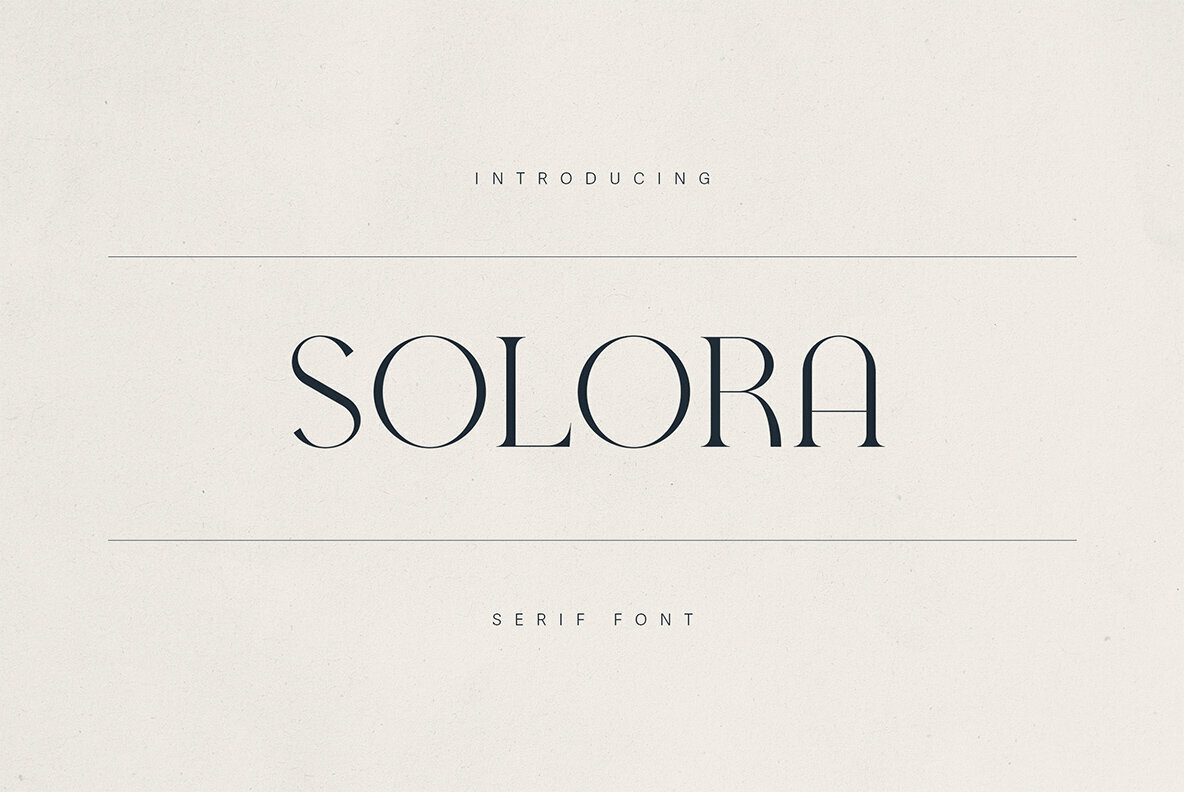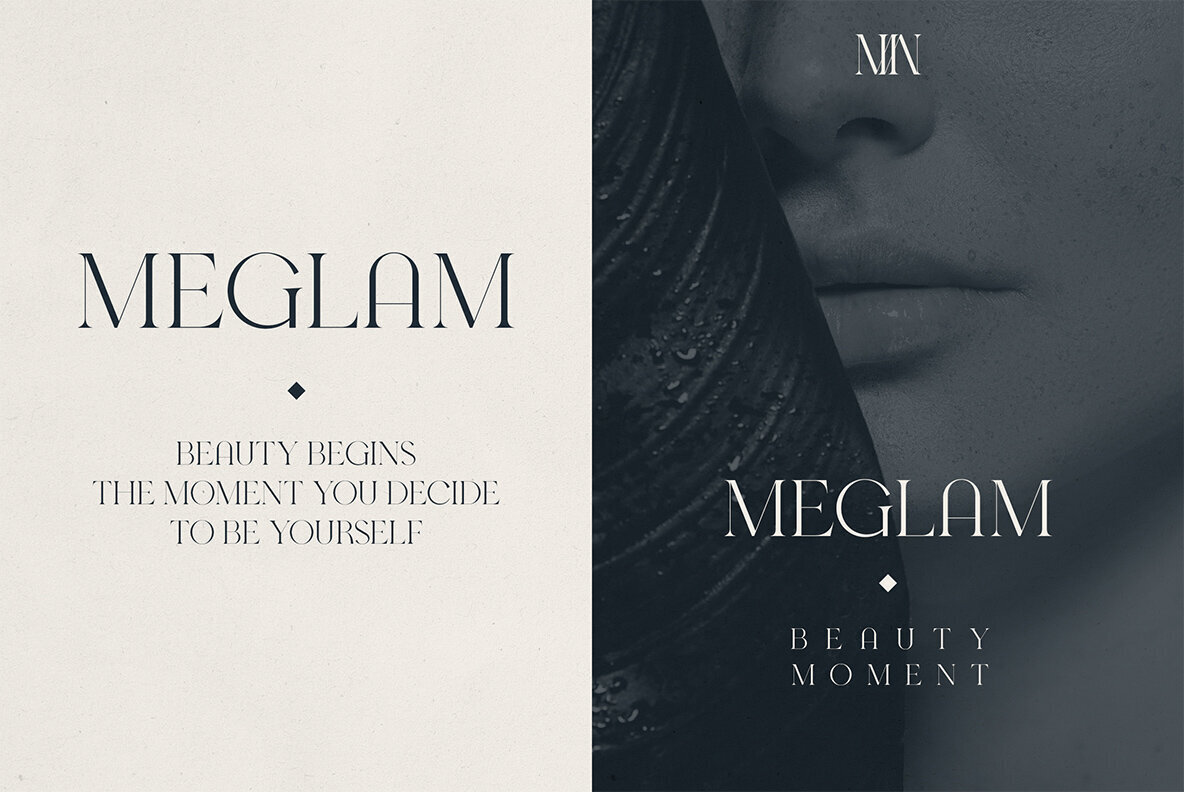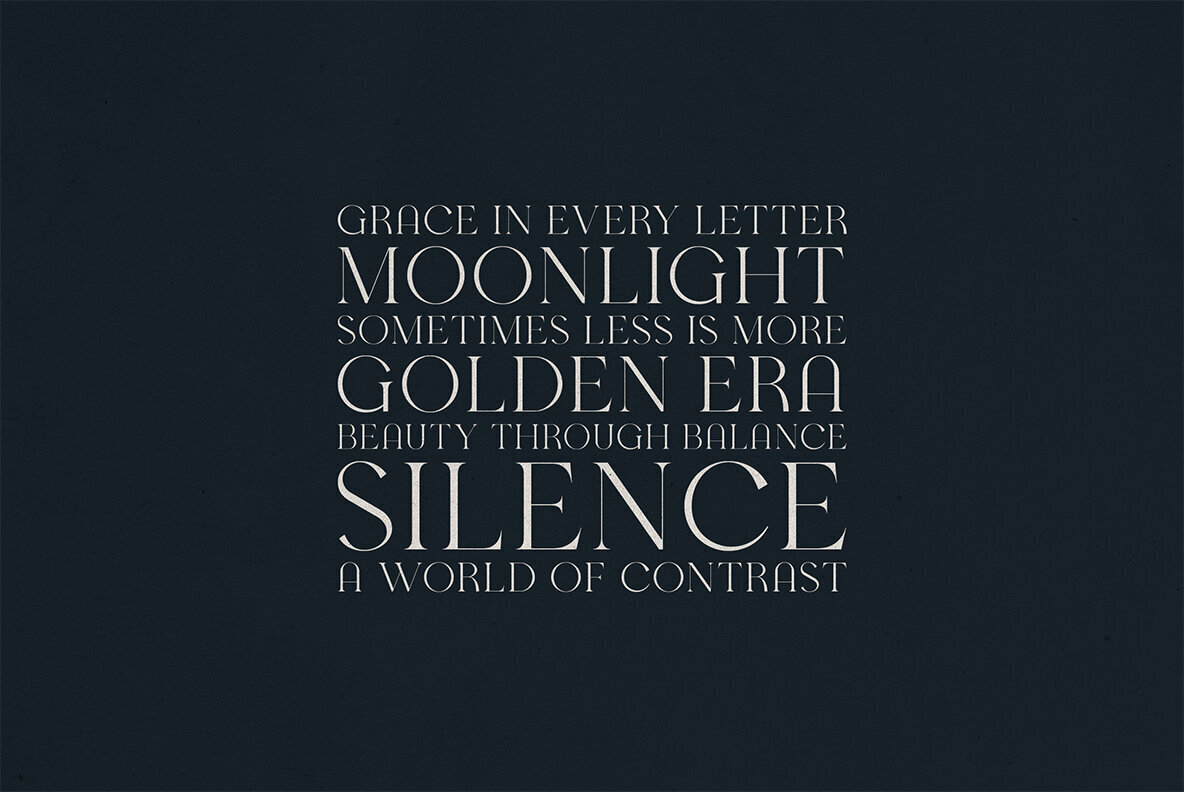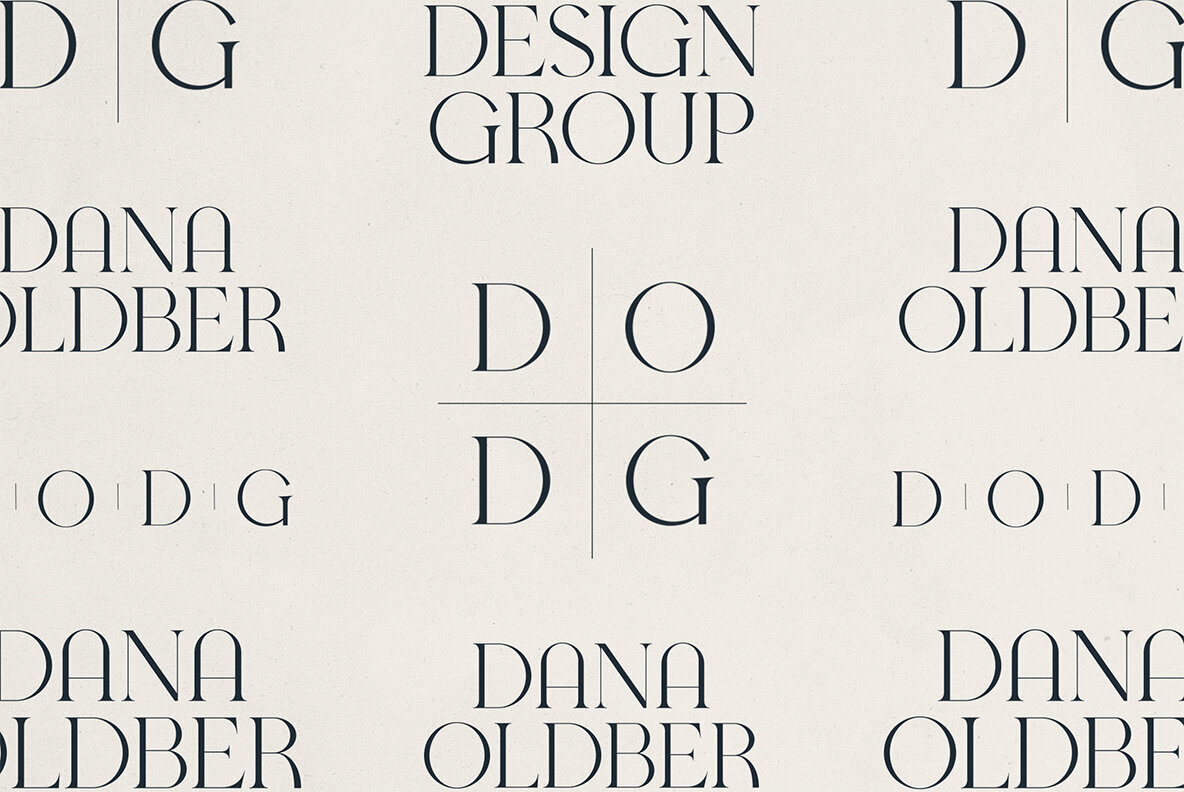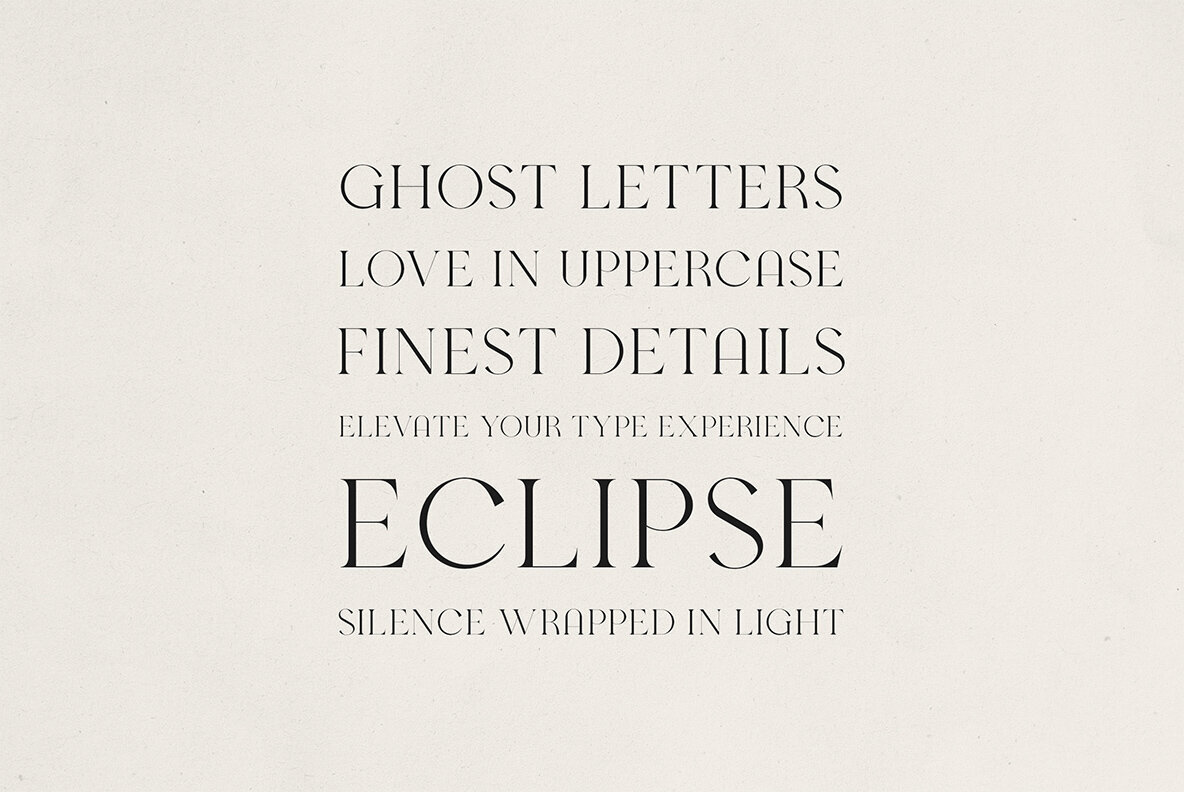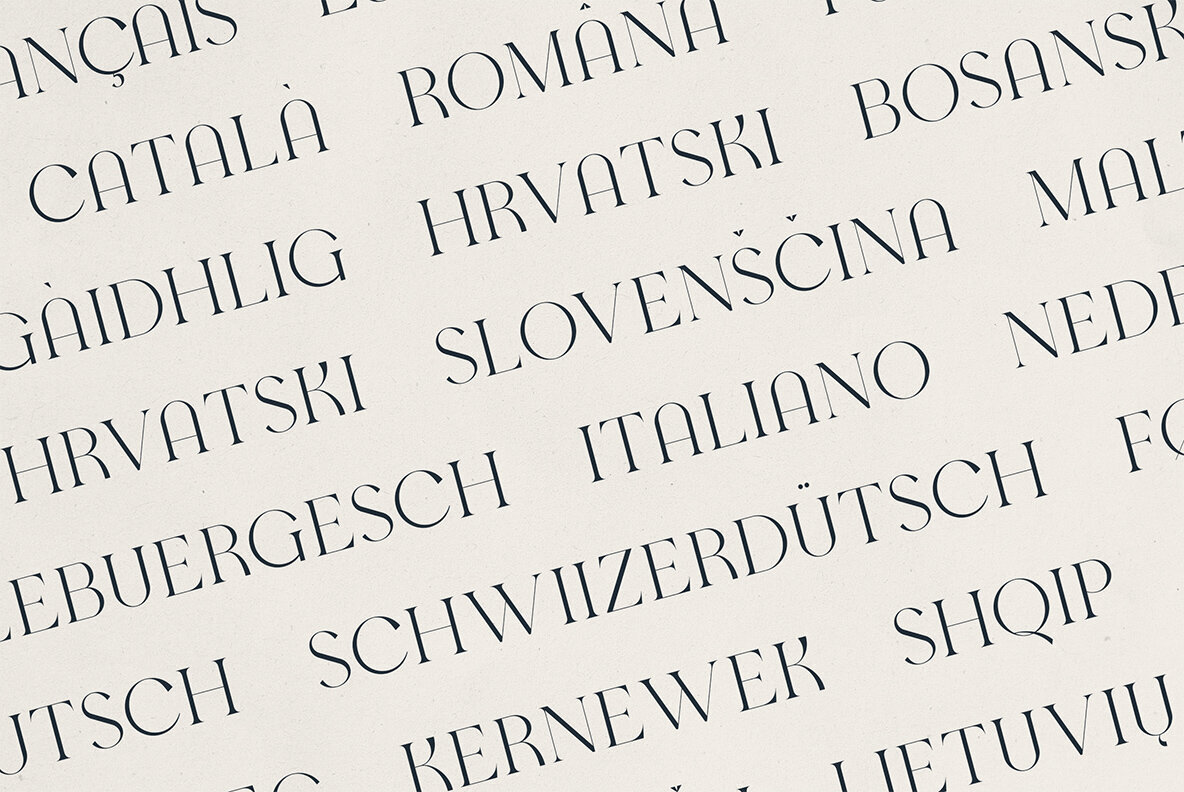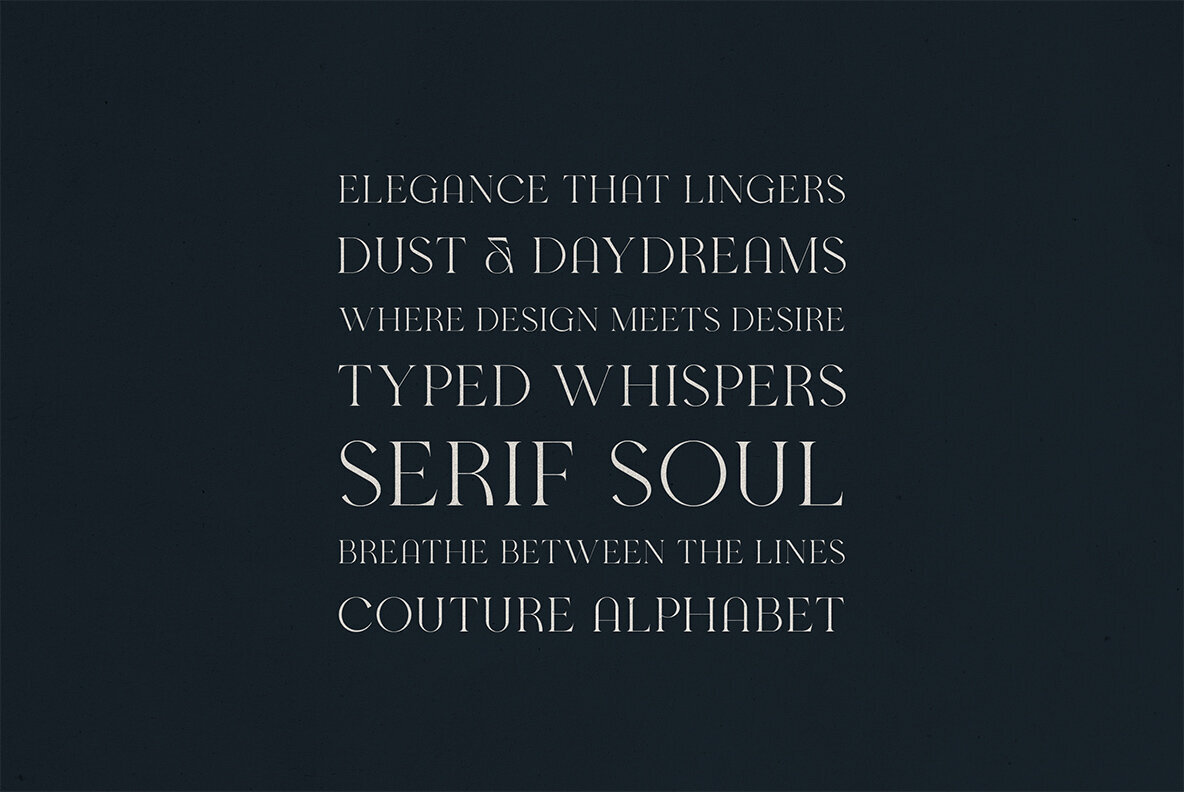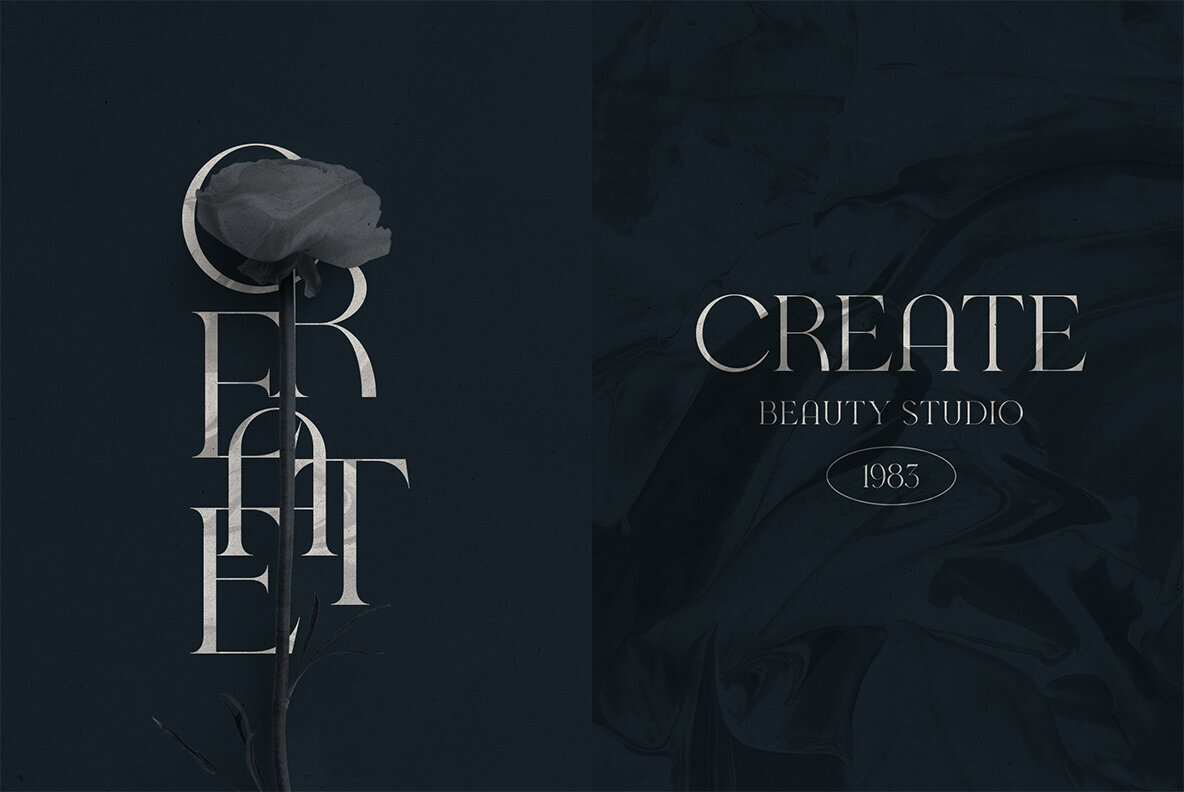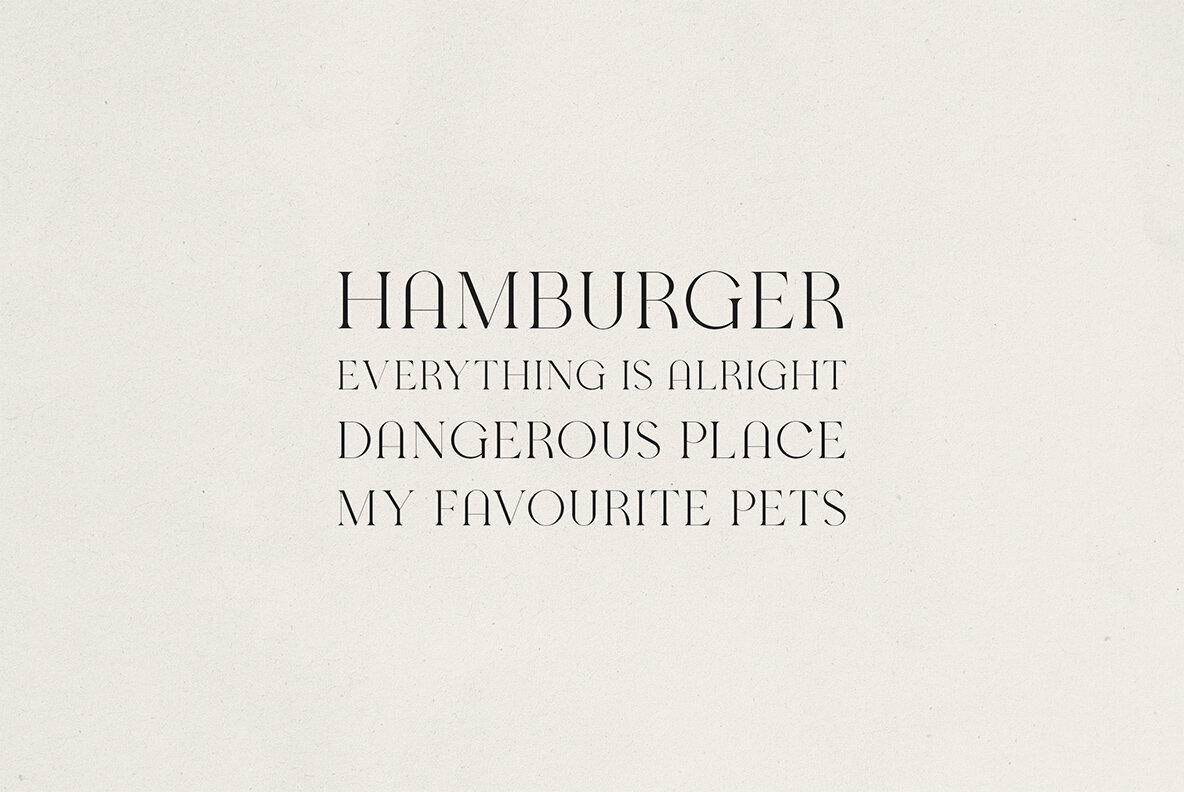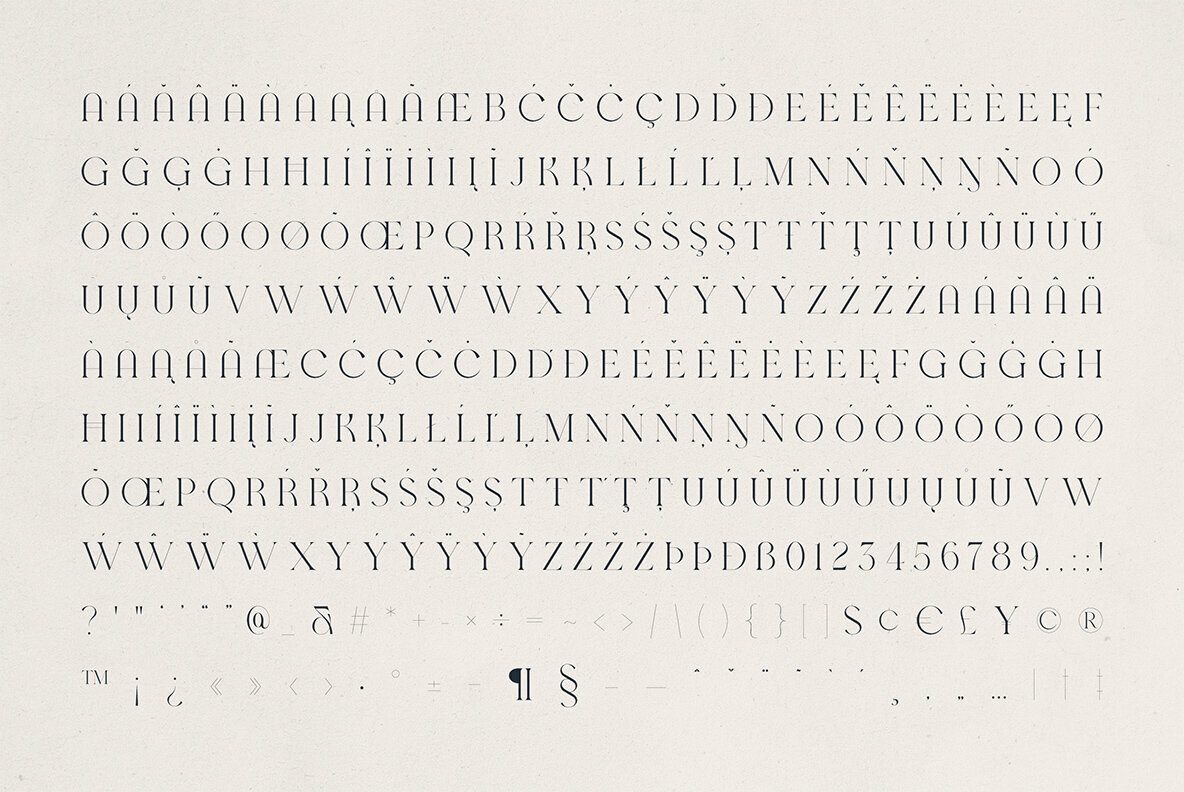
Solora Font
Solora Regular
Introducing Solora, a timeless serif font that epitomizes elegance and style in every stroke. Graceful curves and couture-inspired letterforms make Solora a distinguished choice for any project demanding sophistication with a contemporary edge. The font's high-contrast design and sleek serifs radiate luxury and confidence, rendering it ideal for branding, editorial layouts, packaging design, fashion campaigns, and high-end beauty promotions. From luxury logos to chic magazine spreads and elegant invitations, Solora infuses each project with instant drama and refinement. Its versatile character shines in both striking headlines and polished body text, making it a go-to solution for top-tier design needs. Embrace classic elegance with Solora Serif Font and elevate your design projects with modern sophistication.Solora – Elegant Modern Serif Font